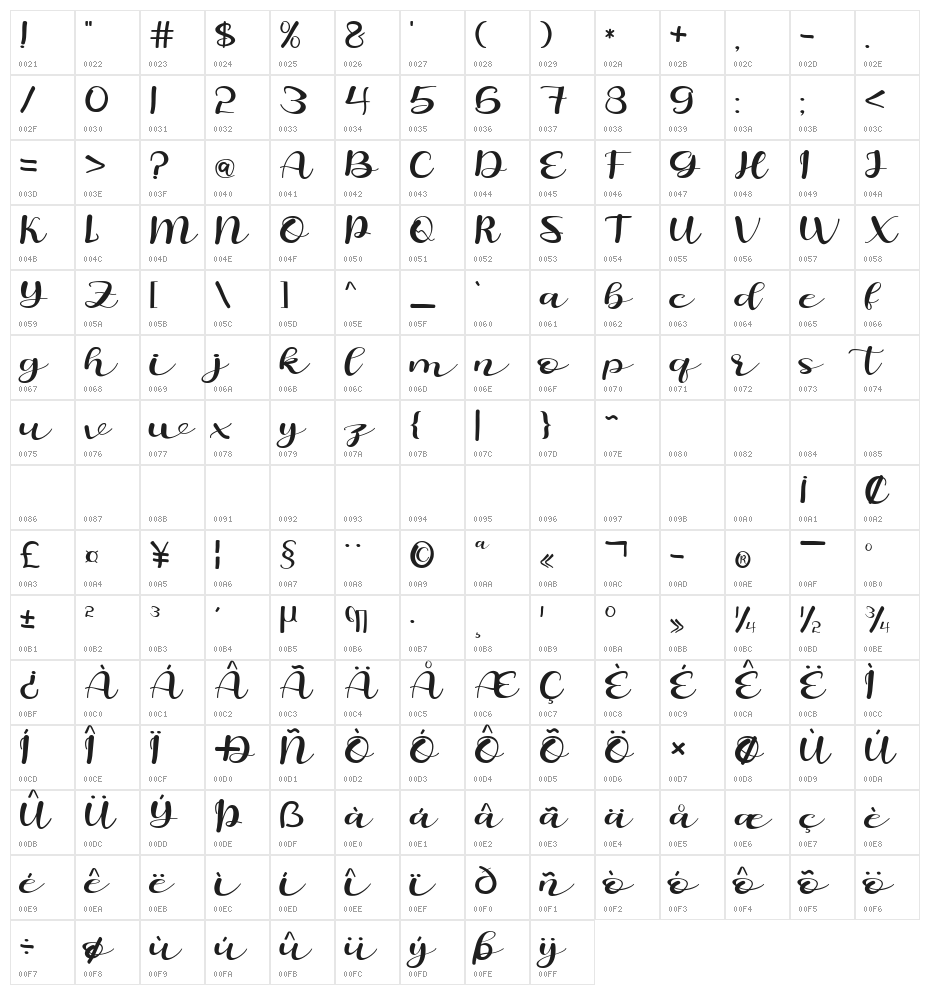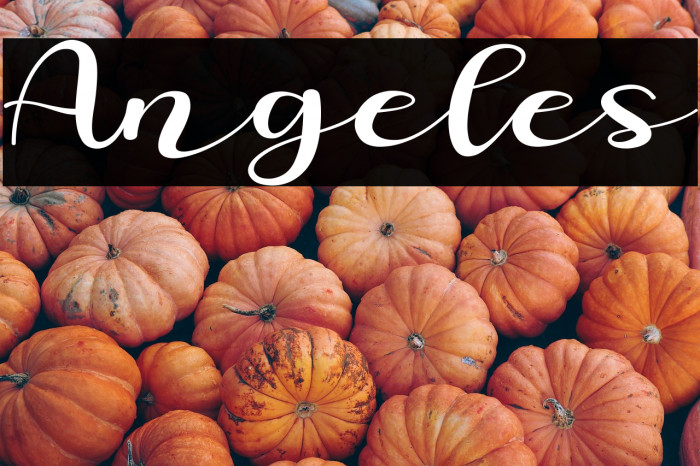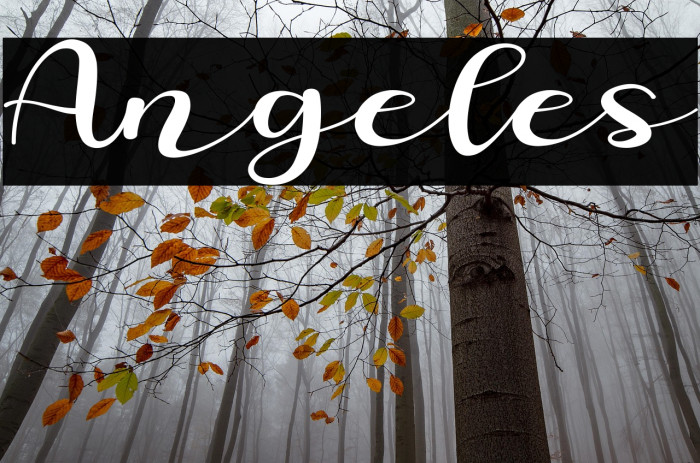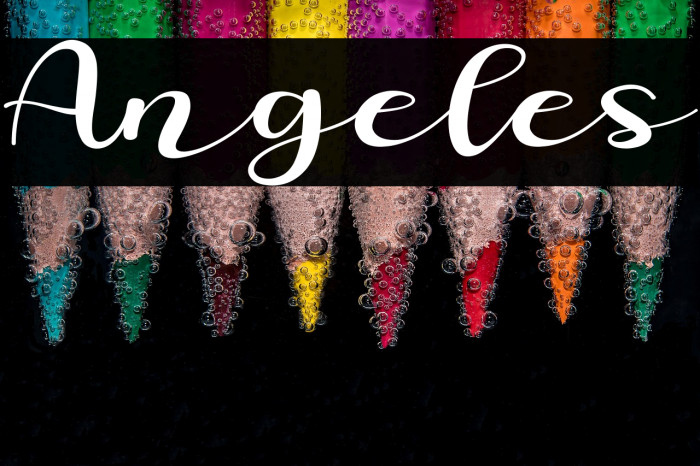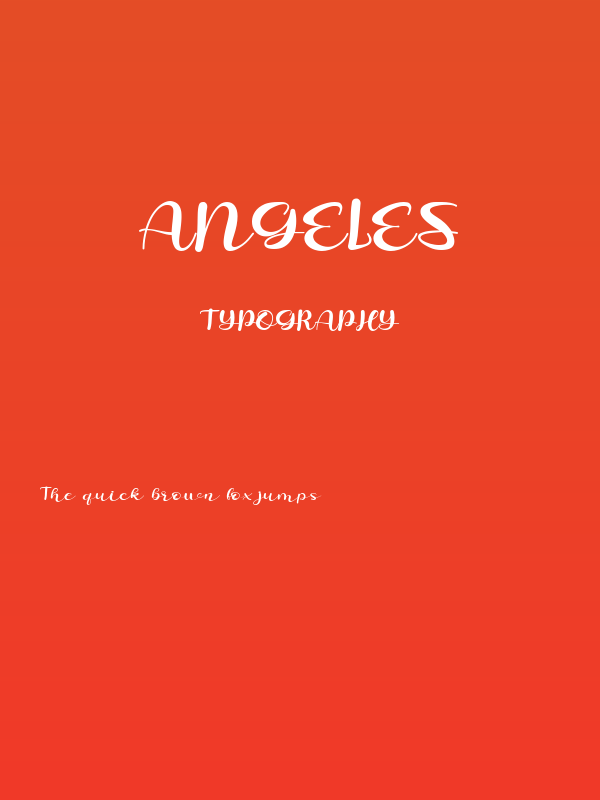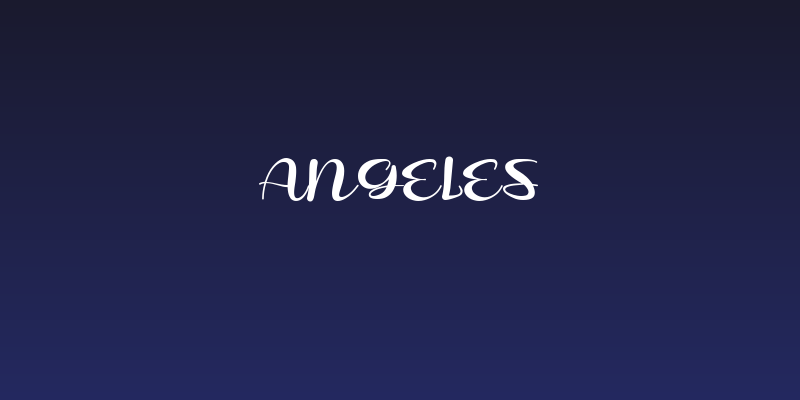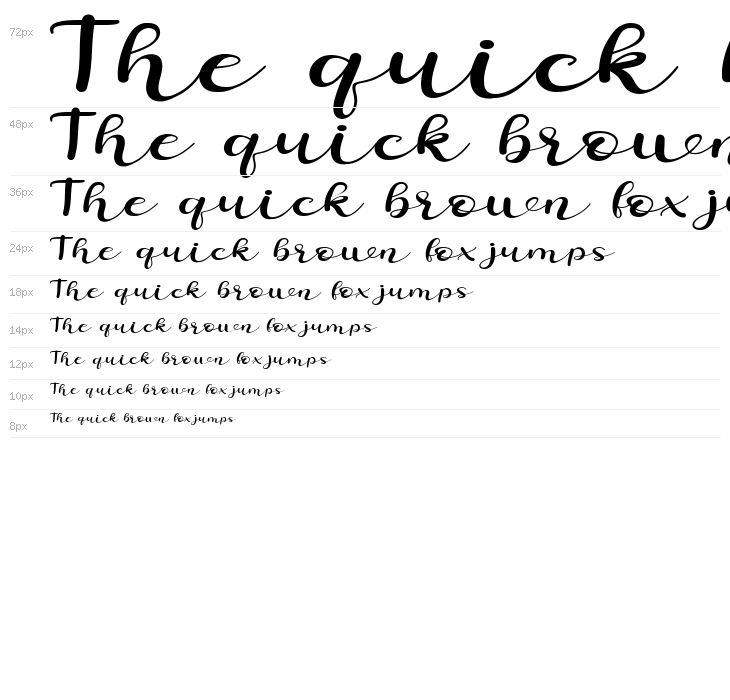
Angeles Font
Angeles Description
This font features a lively and flowing script style, characterized by its elegant and smooth curves. The uppercase letters exhibit a playful yet sophisticated flair, with distinctive loops and swashes that add a sense of movement. The lowercase letters maintain a consistent flow, complementing the uppercase with their graceful and connected strokes. Numbers and special characters are designed with the same fluidity, ensuring a cohesive appearance across all text. The font's overall aesthetic is both modern and timeless, making it suitable for a variety of design applications.